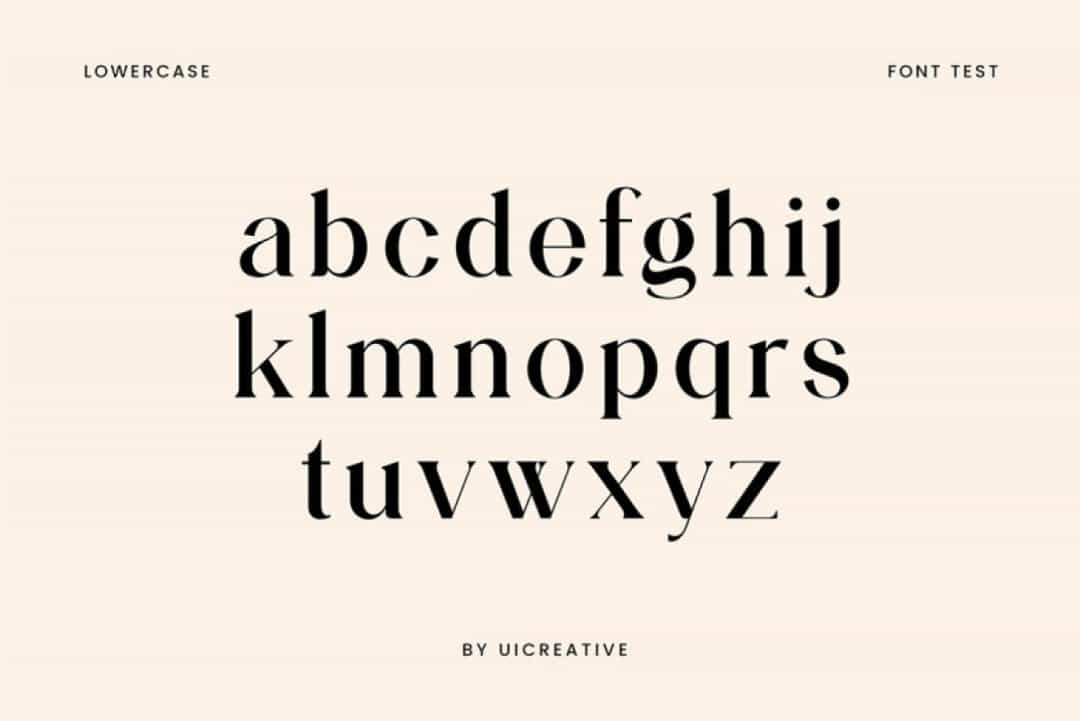
Liquefieri is an elegant serif font that exudes sophistication and modernity, perfect for stationary designs, signatures, wedding logos, typography quotes and book or magazine covers. Also suitable as headers on websites and clothing branding designs as well as packaging designs and many more uses.